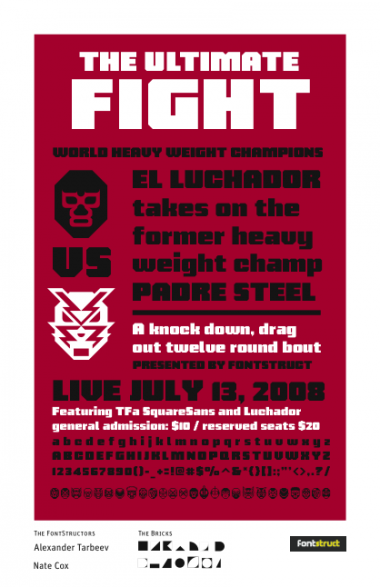
Luchador
i have no words left.
Nate, this is amazing. Now put on the mask and we'll take some pictures.
You must do a
Starman
!
Too funny! :D Are these actual wrestler masks?
This is one of the coolest fonts I have ever seen. Awesome work.
Haha.
This is a really nice font! You actually pictured some Mexican wrestlers!!! AWESOME JOB!!!
abismo negro, blue demon, tinieblas, super muñeco, mil mascaras, dr. wagner, villanos, y fantasma Yeah!
awesome~! perfect font for font synth VJing : )
WOW! so genius and creative viva lucha!
Great idea. We used it for our fontstruction poster promotions :)
nice
amazing. love it
Fantastic, my daughter is a Wrestler, she'll love this font.
This positively rules.
ahahah ! Perfect !
Y agreguemos también que están Pierrot, Ultraman y el fantasma, dentro de los que puedo reconocer.
Muy buen trabajo
Amazing ! This is superb !
Te rifaste :D